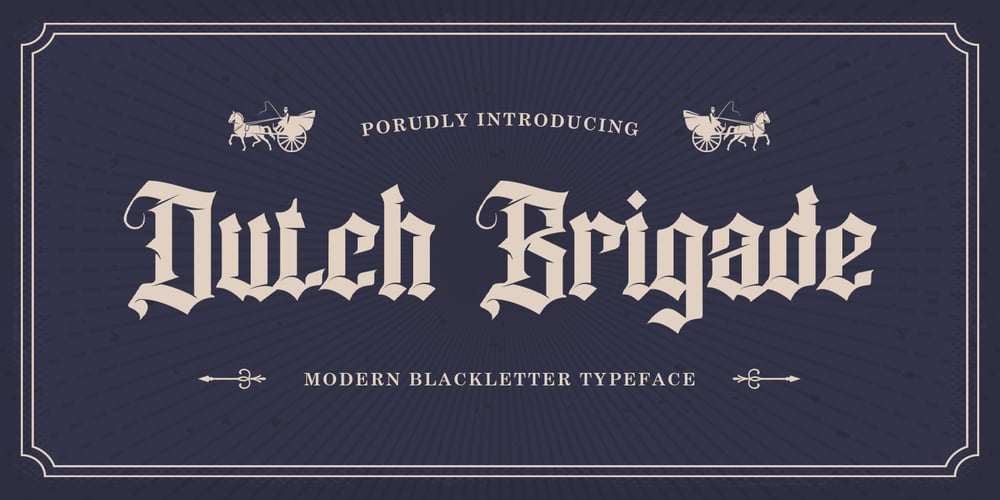
Dutch Brigade Font Family was designed by Hilmius Akbar and published by Typefactory. Dutch Brigade contains 1 styles and family package options. Brickson is a distinct, elegant serif that blends traditional influences into a contemporary aesthetic. Elegantly crafted and easily be matched to an incredibly large set of projects. Use Brickson to achieve an exquisite, yet subtle look and maximum versatility.